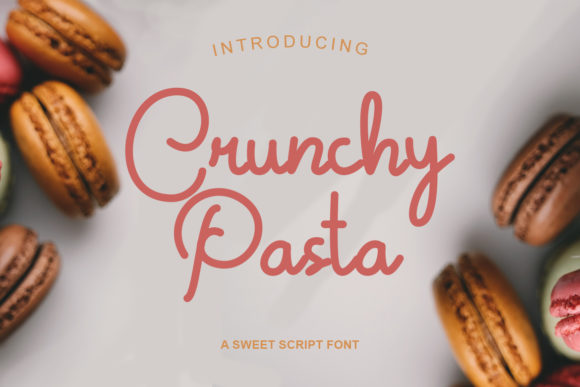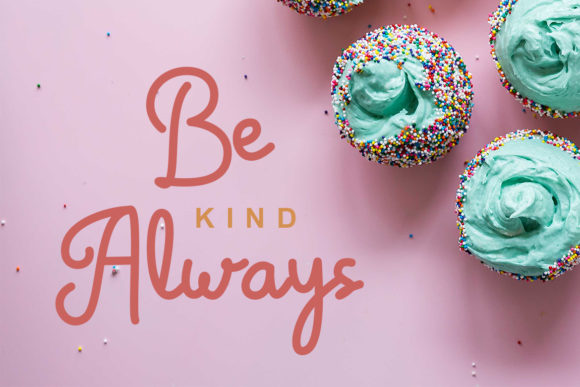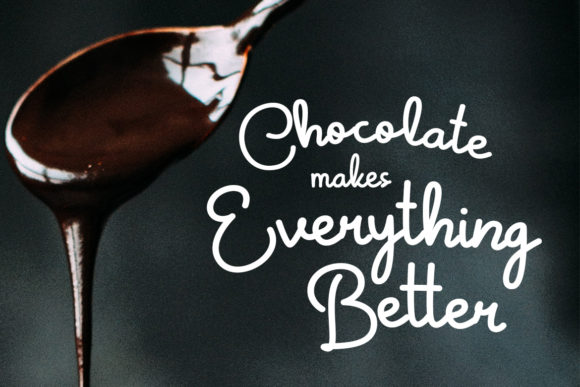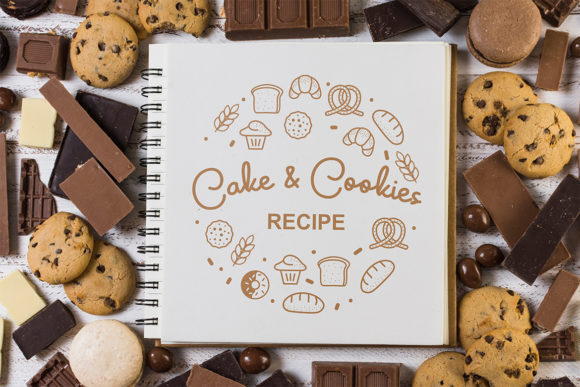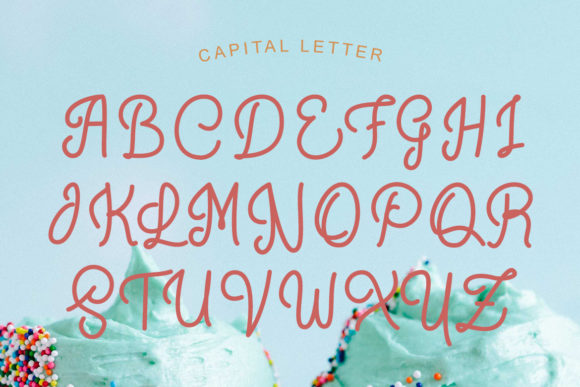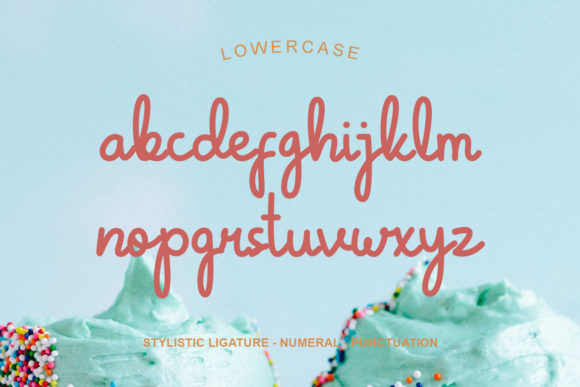
Crunchy Pasta Font
About Crunchy Pasta Font
Crunchy Pasta is a sweet and simple hand-drawn font. Its bold and curvy characters will add a personal touch to any project.